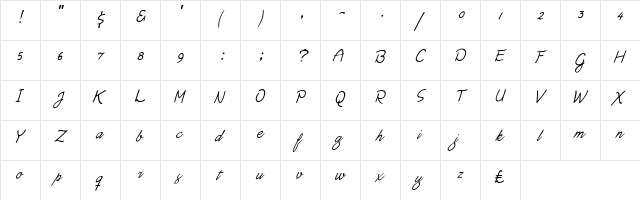
Moonlight Script Regular Font Preview
Design Context for Moonlight Script Typeface
Moonlight Script brings a calligraphic fluidity to the page — its connecting strokes and expressive curves give it an unmistakably human quality. Its slender proportions lend an understated elegance to any composition.
Font Pairing: Combine Moonlight Script with a simple geometric sans for maximum contrast — the tension between flowing curves and clean structure is a classic typographic pairing.
Pro Tip: Pair Moonlight Script with a clean sans-serif for supporting text. The contrast between fluid script and geometric structure creates an elegant typographic hierarchy.